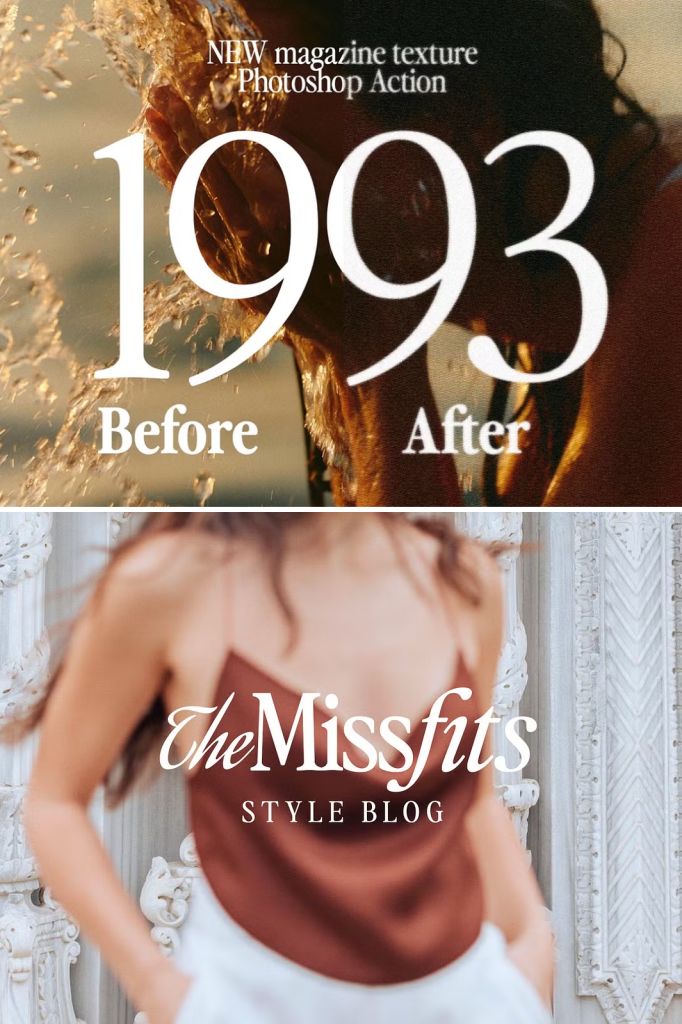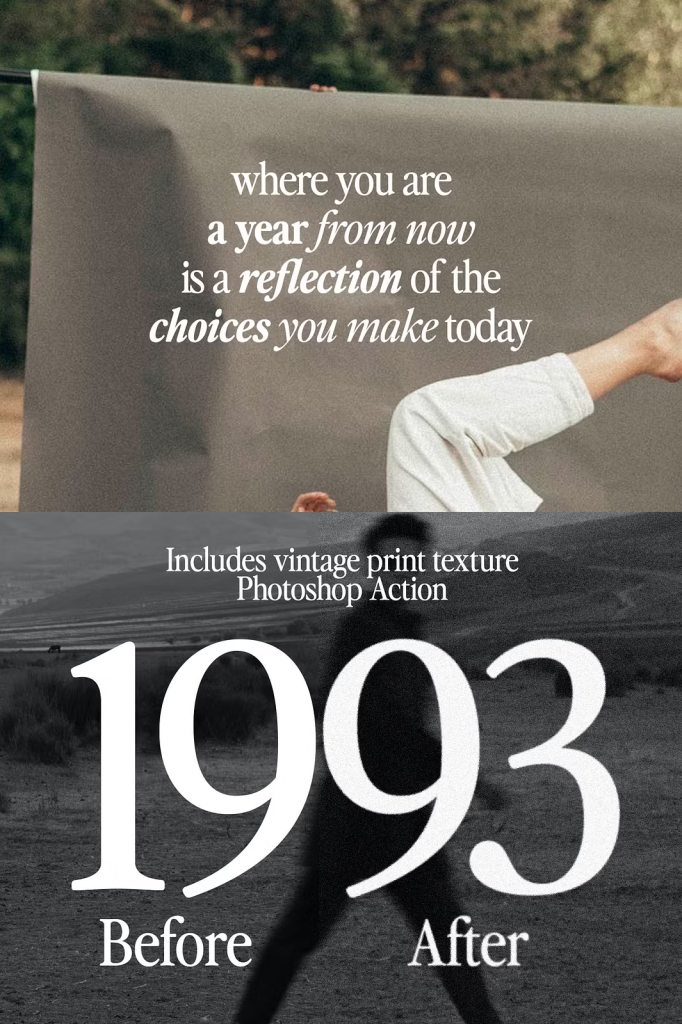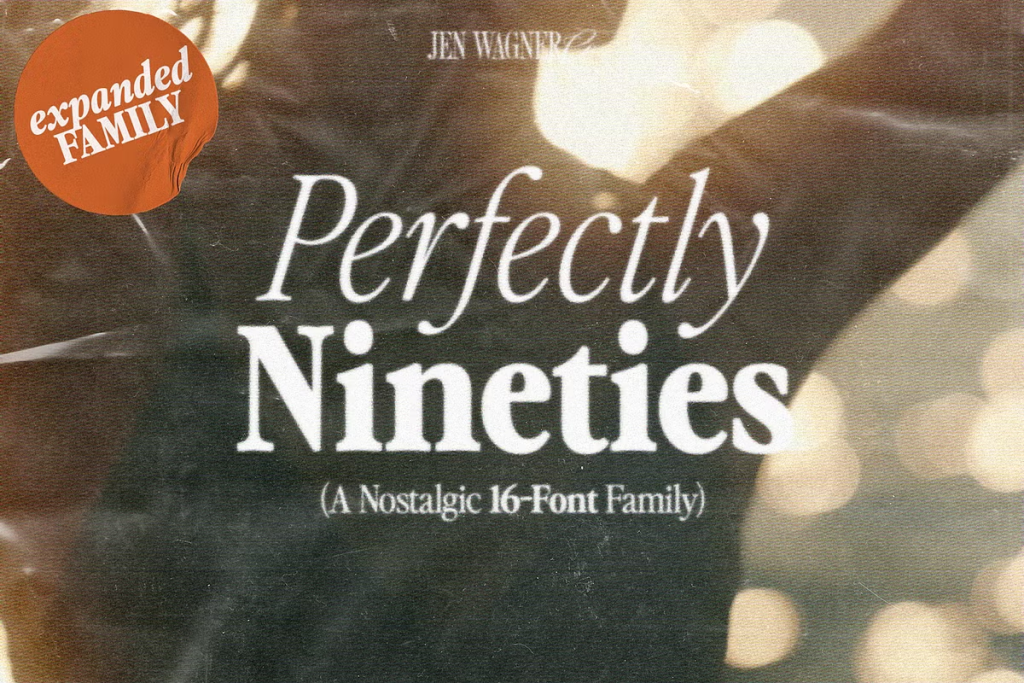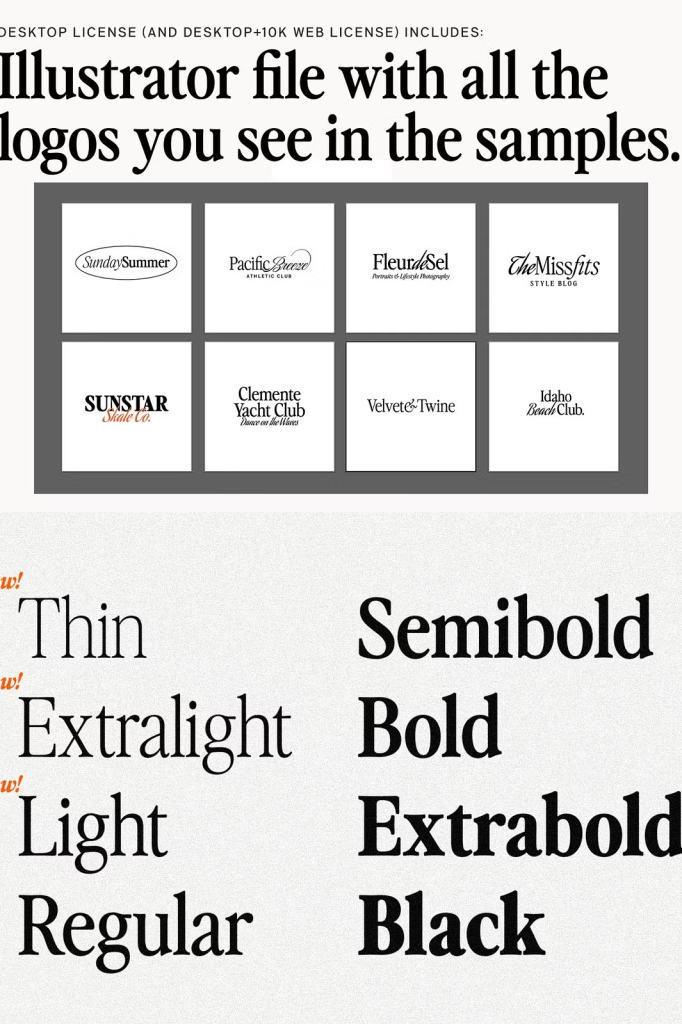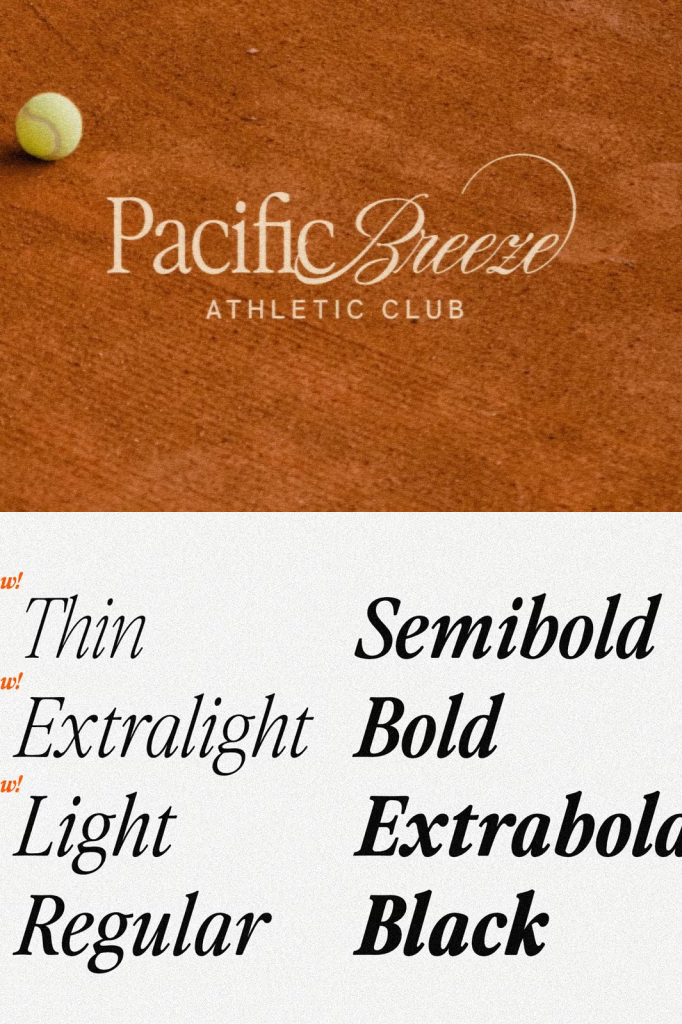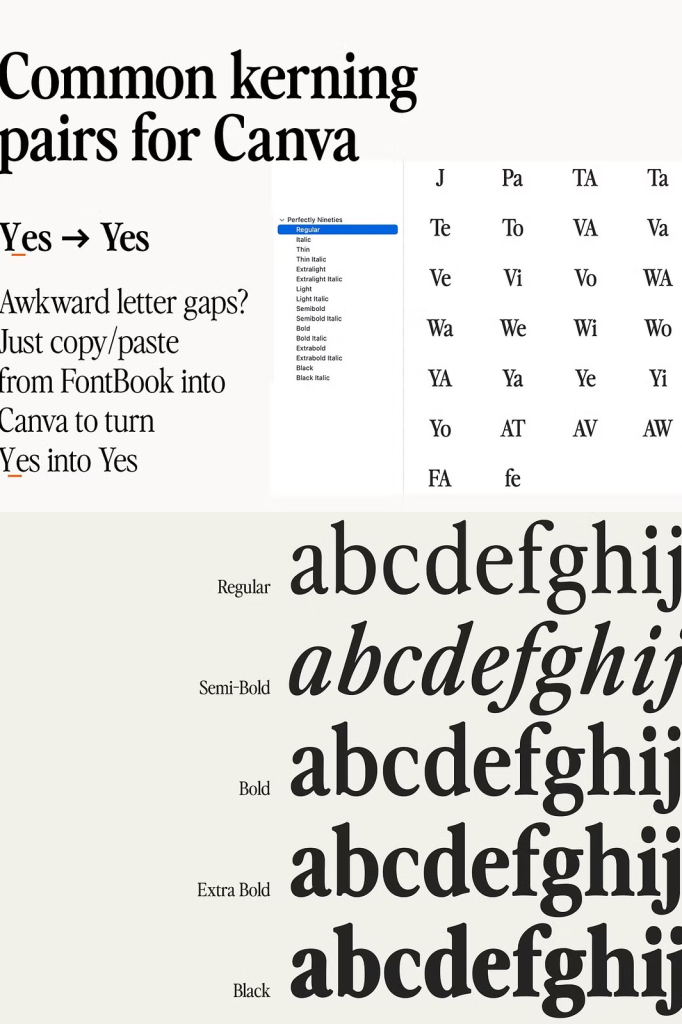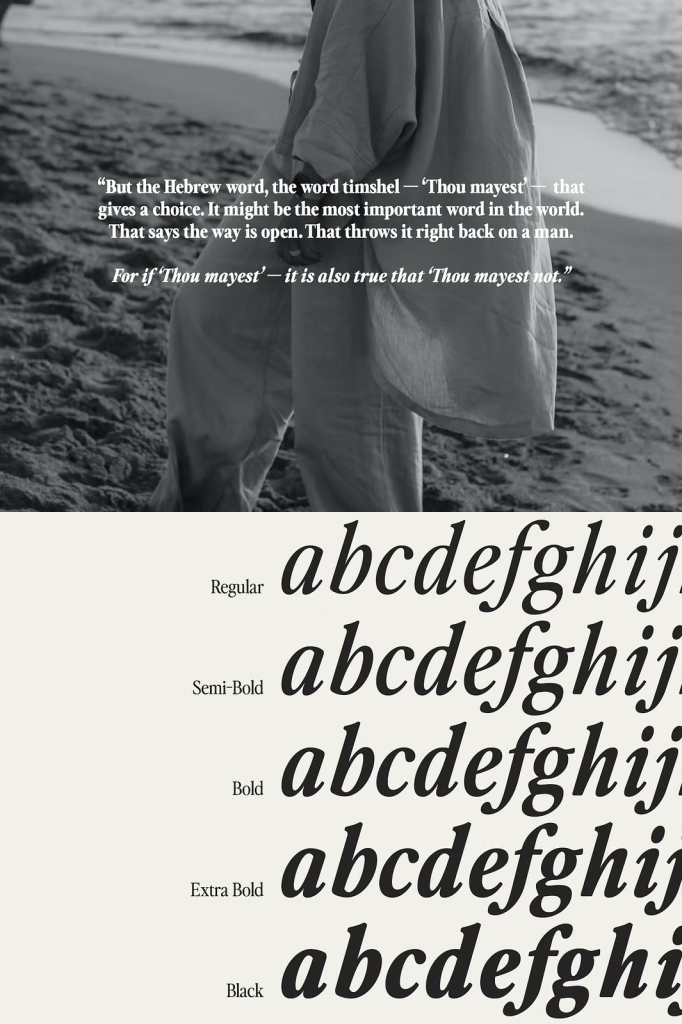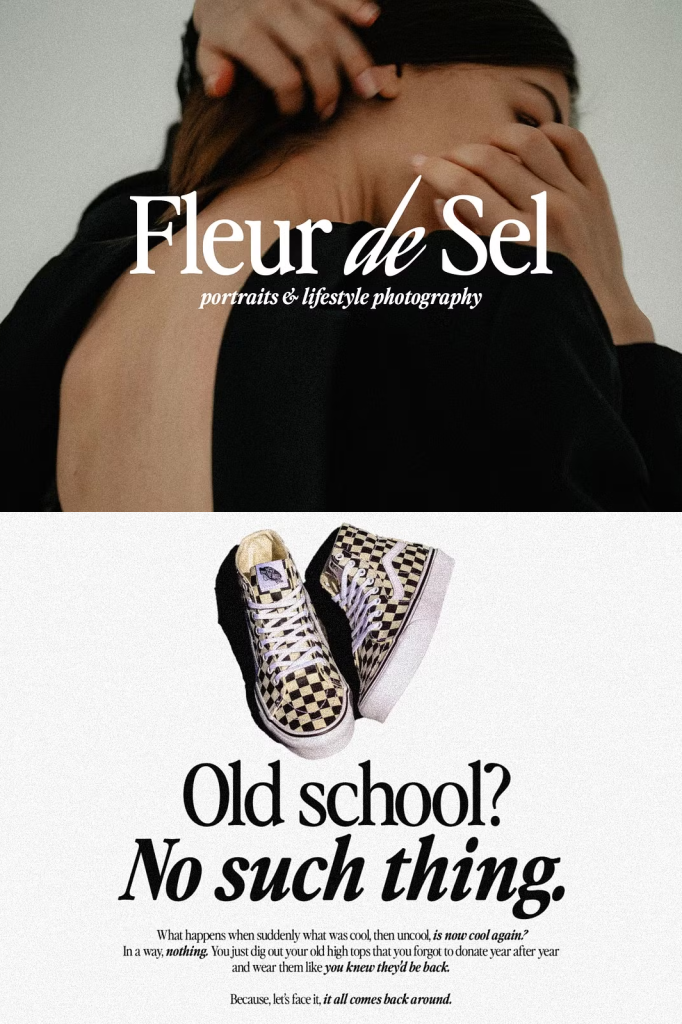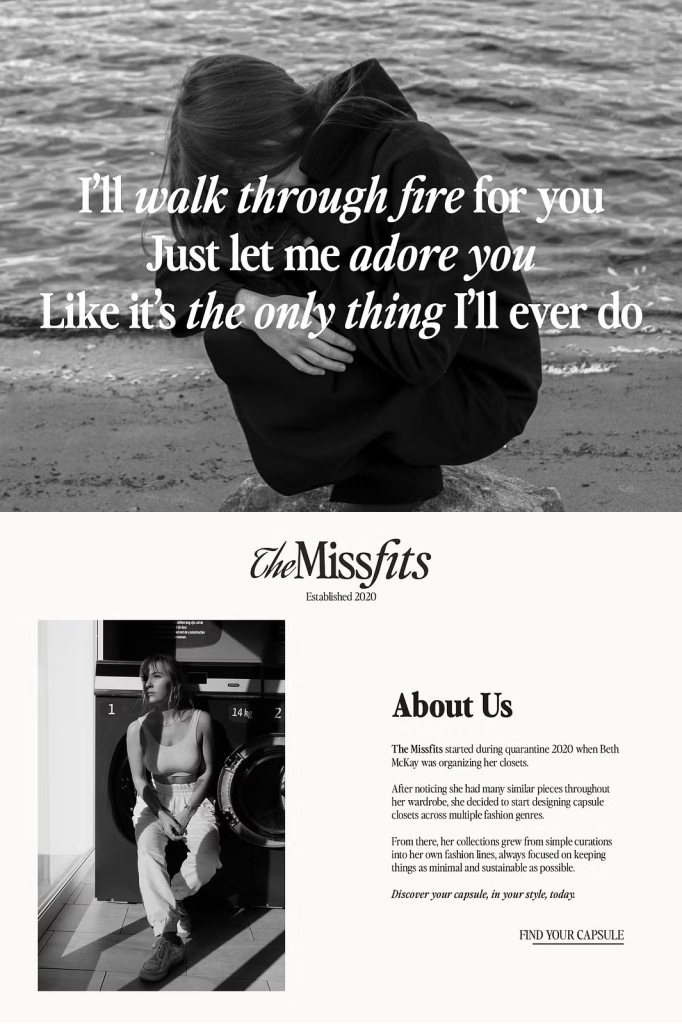
Perfectly Nineties Family Font: A Complete Retro Typeface Collection
Bring Back the Bold Style of the 80s and 90s
The Perfectly Nineties Family is a thoughtfully crafted expansion of the original Perfectly Nineties typeface. This collection captures the unmistakable charm of classic serif typography from the 1980s and 1990s while delivering modern usability. Designers today are rediscovering the appeal of tightly spaced serif fonts, and this font family answers that demand with precision, versatility, and style.
This complete set includes 16 fonts, offering both regular and italic styles across a full range of weights—from Thin to Black. Every variation maintains a cohesive visual identity, allowing you to create consistent and professional designs across multiple formats and projects.
A Versatile Typeface for Modern Designers
Perfectly Nineties Family adapts seamlessly to different design needs. Whether you want to create bold headlines, elegant branding, or readable body text, this font collection gives you the flexibility to do it all. Each weight has been carefully designed to preserve clarity and personality, ensuring your message stands out.
Key Features of the Font Family
- 16 complete font styles including regular and italic
- Wide weight range from Thin to Black
- Strong nostalgic influence inspired by 80s and 90s typography
- Clean and balanced serif structure for high readability
- Perfect for both display and body text applications
Designed for Impact and Readability
Unlike many decorative retro fonts, Perfectly Nineties Family focuses on both aesthetics and function. The letterforms maintain a structured, tight spacing that enhances visual rhythm while preserving readability across different sizes. You can confidently use this typeface in large-scale designs such as posters, banners, and headlines, as well as smaller formats like editorial layouts, websites, and printed materials.
The italic versions introduce subtle motion and elegance, making them ideal for emphasis, quotes, or stylish accents. Meanwhile, the heavier weights deliver bold impact, perfect for branding and attention-grabbing titles.
Perfect for Multiple Creative Projects
This font family works exceptionally well across a wide range of creative projects. Whether you are building a brand identity, designing social media graphics, or creating editorial layouts, Perfectly Nineties provides the tools you need to achieve a cohesive and visually striking result.
Best Use Cases
- Branding and logo design
- Editorial and magazine layouts
- Social media graphics and marketing materials
- Posters, flyers, and advertising campaigns
- Website typography and digital content
Capture Nostalgia with a Modern Edge
The resurgence of retro-inspired design continues to influence modern typography trends. Perfectly Nineties Family taps into that movement while refining it for today’s creative standards. It balances nostalgic character with clean execution, making it a reliable choice for designers who want to evoke emotion without sacrificing quality.
If you are looking for a font that combines classic inspiration with professional versatility, Perfectly Nineties Family delivers a complete solution. Its extensive range, thoughtful design, and timeless appeal make it an essential addition to any designer’s toolkit.